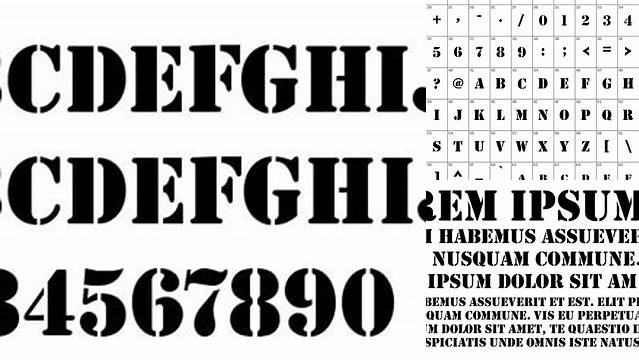
Hey guys! Are you looking for a bold and industrial-style font to spice up your design projects? Look no further! Today, we're diving deep into the world of Stencil Regular font. This font is a fantastic choice for adding a touch of urban flair to posters, logos, headlines, and more. We’ll explore everything you need to know about Stencil Regular, where to find a free .TTF download, and how to best use it in your designs. Get ready to unleash your creativity!
What is Stencil Regular Font?
Before we get into the nitty-gritty of downloading and using this awesome font, let's understand what Stencil Regular is all about. Stencil Regular is a typeface inspired by the lettering traditionally used on stencils. Think military equipment, shipping crates, and urban signage – that's the vibe this font brings to the table. Its distinctive feature is the breaks in the letterforms, mimicking the cuts in a physical stencil. This gives it a rugged, industrial, and slightly vintage feel. The bold character of Stencil Regular makes it highly legible even at a distance, perfect for headlines and impactful visuals. Many designers love using Stencil Regular because it's both eye-catching and functional. Its unique aesthetic helps to create a strong visual hierarchy, making it ideal for emphasizing key messages in your designs. Whether you're working on a poster for a rock concert, a logo for an industrial brand, or a website header that needs to grab attention, Stencil Regular is a great tool to have in your font arsenal. It’s a versatile font that can be used in a wide array of projects, adding a touch of strength and personality to any design.
6. Stencil Regular Font Alternatives
Okay, so you're digging the Stencil Regular font vibe, but maybe you want to explore some other options that offer a similar feel. That's a great idea! Having a few alternatives in your font library can help you diversify your designs and find the perfect fit for each project. There are plenty of fonts out there that capture the same rugged, industrial, or military-inspired aesthetic as Stencil Regular. One popular alternative is Bebas Neue, a sans-serif font that's known for its clean lines and tall, narrow characters. While it doesn't have the stencil cuts, it shares a similar boldness and is great for headlines and titles. Another fantastic option is Roboto, a widely-used sans-serif font family that includes a variety of weights and styles. Roboto's condensed styles can give you a similar impact to Stencil Regular, while its other styles offer versatility for body text and other design elements. If you're looking for a more vintage stencil feel, check out Army Stencil. As the name suggests, this font is directly inspired by military stencils and has a classic, slightly distressed look. For something a bit more modern, consider Rajdhani. This sans-serif font has a geometric feel and a strong presence, making it a good choice for headlines and logos. Don't forget to explore sites like Google Fonts, Font Squirrel, and DaFont for even more alternatives. These sites offer a vast selection of free and commercial fonts, and you're sure to find some hidden gems that complement Stencil Regular beautifully. Experimenting with different fonts is key to creating unique and impactful designs, so have fun exploring your options!
7. Using Stencil Regular in Graphic Design
Let's talk about how to actually use Stencil Regular in your graphic design projects! This font isn't just cool-looking; it's also incredibly versatile when applied strategically. Its strong, bold character makes it perfect for headlines and titles where you want to grab attention. Think posters, website headers, and even social media graphics. The distinctive stencil cuts give it a rugged, industrial edge, so it works well for designs that need a touch of that aesthetic. For example, if you're designing a poster for a rock concert, a flyer for a craft brewery, or a logo for a construction company, Stencil Regular can be a fantastic choice. However, because of its strong personality, it’s best to use Stencil Regular sparingly. Overusing it can make your design feel cluttered and overwhelming. Instead, pair it with a simpler, more neutral font for body text. A clean sans-serif font like Open Sans or Lato can create a nice contrast and improve readability. When using Stencil Regular, pay attention to the letter spacing and kerning. The gaps in the letterforms can sometimes create awkward spacing if not adjusted properly. Most design software allows you to tweak these settings, so experiment until you achieve a balanced and visually appealing result. You can also play with color to enhance the impact of Stencil Regular. Try using it in a bold color like red or yellow against a dark background to really make it pop. Or, for a more subtle effect, use it in a neutral color like gray or black. The key is to experiment and see what works best for your specific design. With a little creativity, Stencil Regular can add a powerful visual punch to your graphic design projects.
8. Stencil Regular for Logo Design
When it comes to logo design, Stencil Regular can be a real game-changer, especially if you're aiming for a bold, industrial, or urban vibe. Its distinctive stencil cuts instantly give a logo a unique and memorable look. Imagine a logo for a craft brewery, a construction company, or even a streetwear brand – Stencil Regular could be the perfect typeface to convey a sense of strength and authenticity. The key to using Stencil Regular effectively in logo design is to keep it simple and clean. Logos need to be versatile and recognizable at various sizes, so avoid overcrowding the design with too many elements. Focus on the core message of your brand and let the font do the talking. Because Stencil Regular is so impactful, you might not need a lot of other visual elements to create a strong logo. Consider using it for the company name or initials, and pair it with a simple icon or symbol if needed. Think about the colors you use as well. Stencil Regular looks great in bold colors like black, white, and shades of gray, but you can also experiment with more vibrant hues to create a different feel. For example, a bright red or yellow can make the logo really pop, while a muted blue or green can convey a more sophisticated and understated image. When incorporating Stencil Regular into a logo, pay close attention to the spacing between letters. The stencil cuts can sometimes create visual gaps, so you might need to adjust the kerning to ensure a balanced and harmonious look. You can also experiment with different weights and styles of Stencil Regular if they are available. Some variations might work better for certain logos than others. Remember, a great logo is more than just a pretty design – it’s a visual representation of your brand's identity. Stencil Regular can help you create a logo that's both visually striking and meaningful, helping your brand stand out from the crowd.
12. Stencil Regular Font Style Variations
Beyond weight variations, Stencil Regular font might also come in different style variations. These variations can add even more versatility to your design toolkit. Style variations refer to modifications of the font's basic form, such as italics, condensed versions, or even stylistic alternates. For example, an italic version of Stencil Regular could add a touch of dynamism and flair to your designs. Italic fonts are often used to emphasize specific words or phrases, or to create a visual contrast with regular text. A condensed version of Stencil Regular might be useful when you need to fit more text into a limited space. Condensed fonts are narrower than their regular counterparts, allowing you to squeeze more characters into a line without sacrificing readability. Some versions of Stencil Regular might also include stylistic alternates, which are different glyphs (character shapes) for certain letters or numbers. These alternates can add a unique and customized look to your designs. For instance, a stylistic alternate for the letter